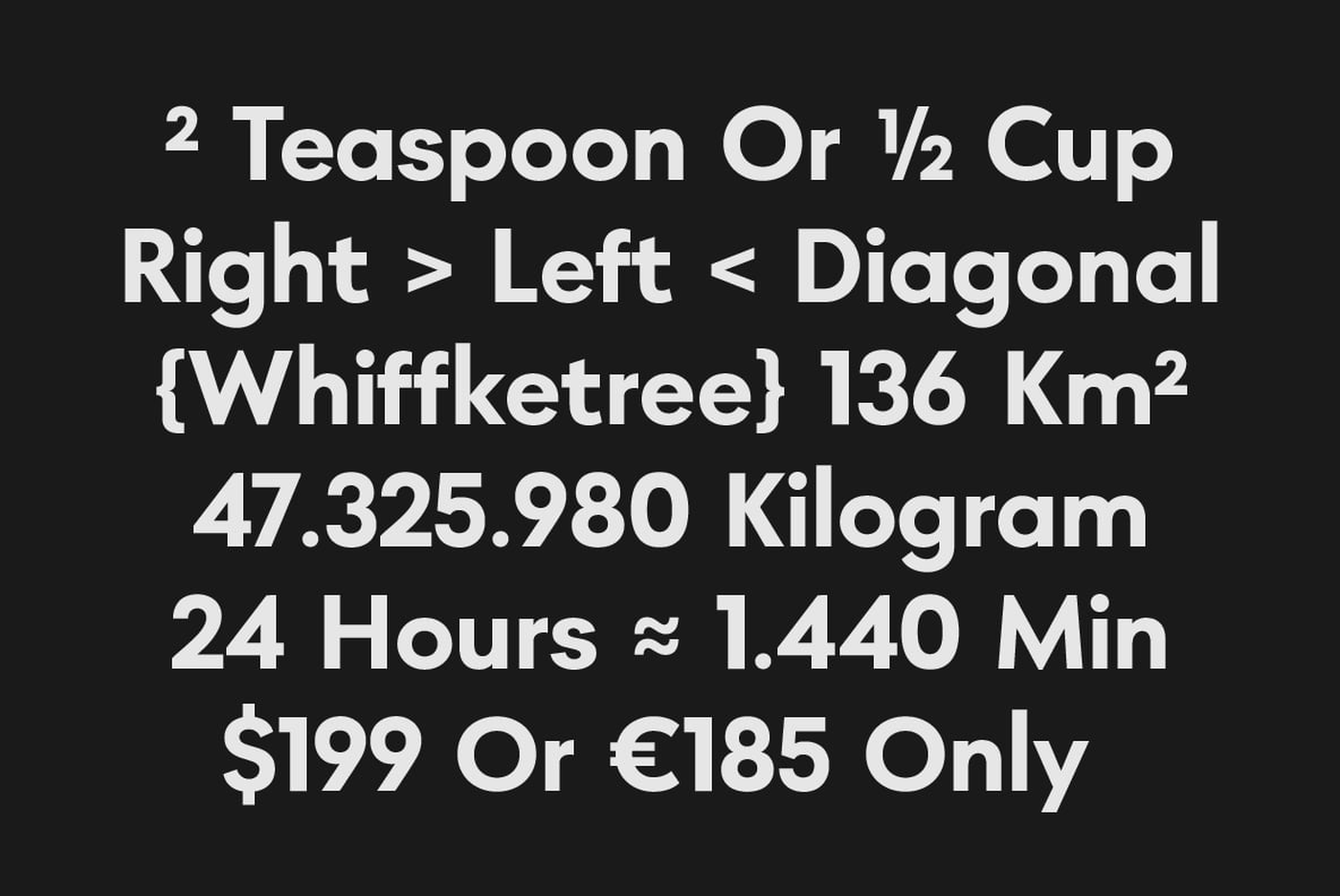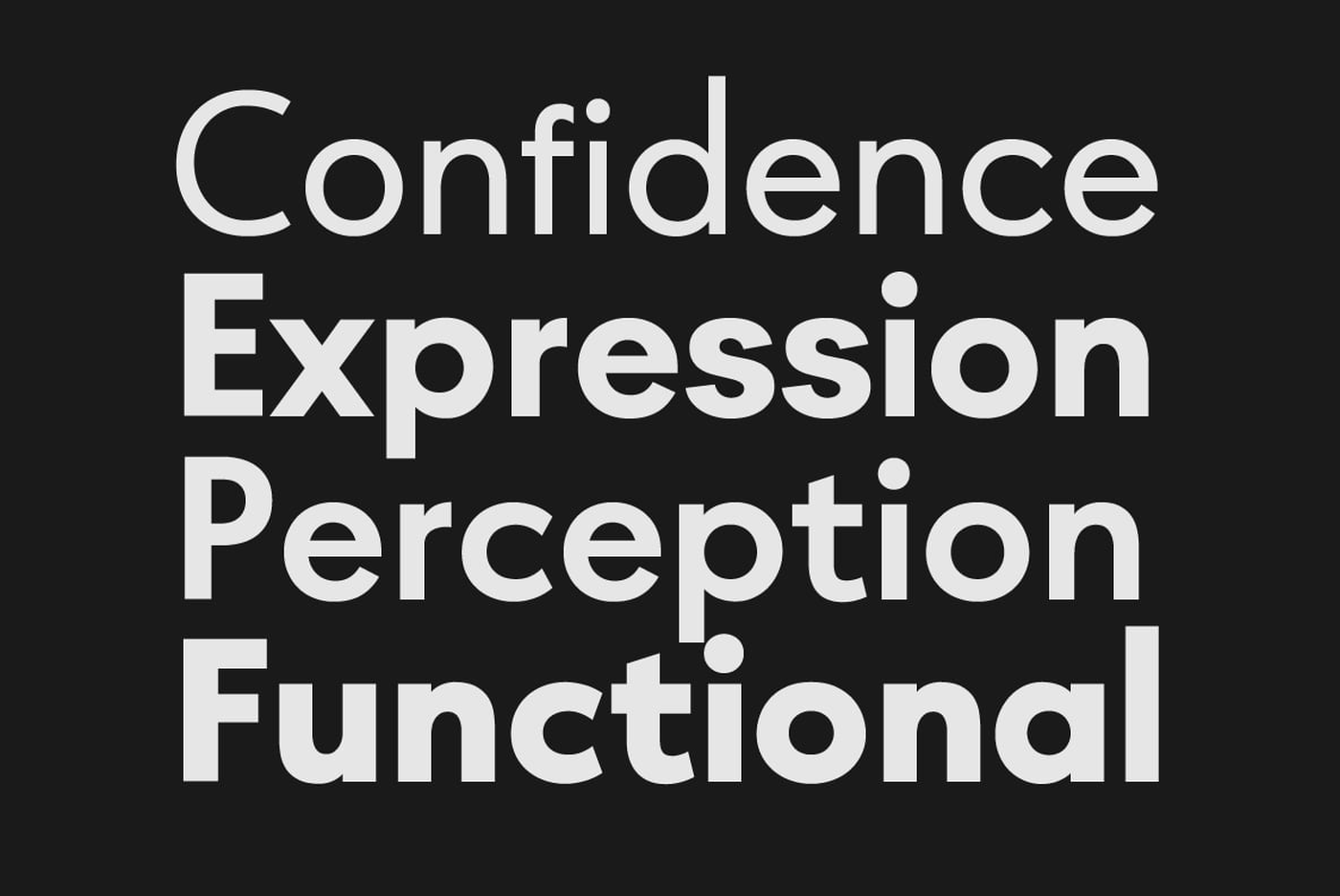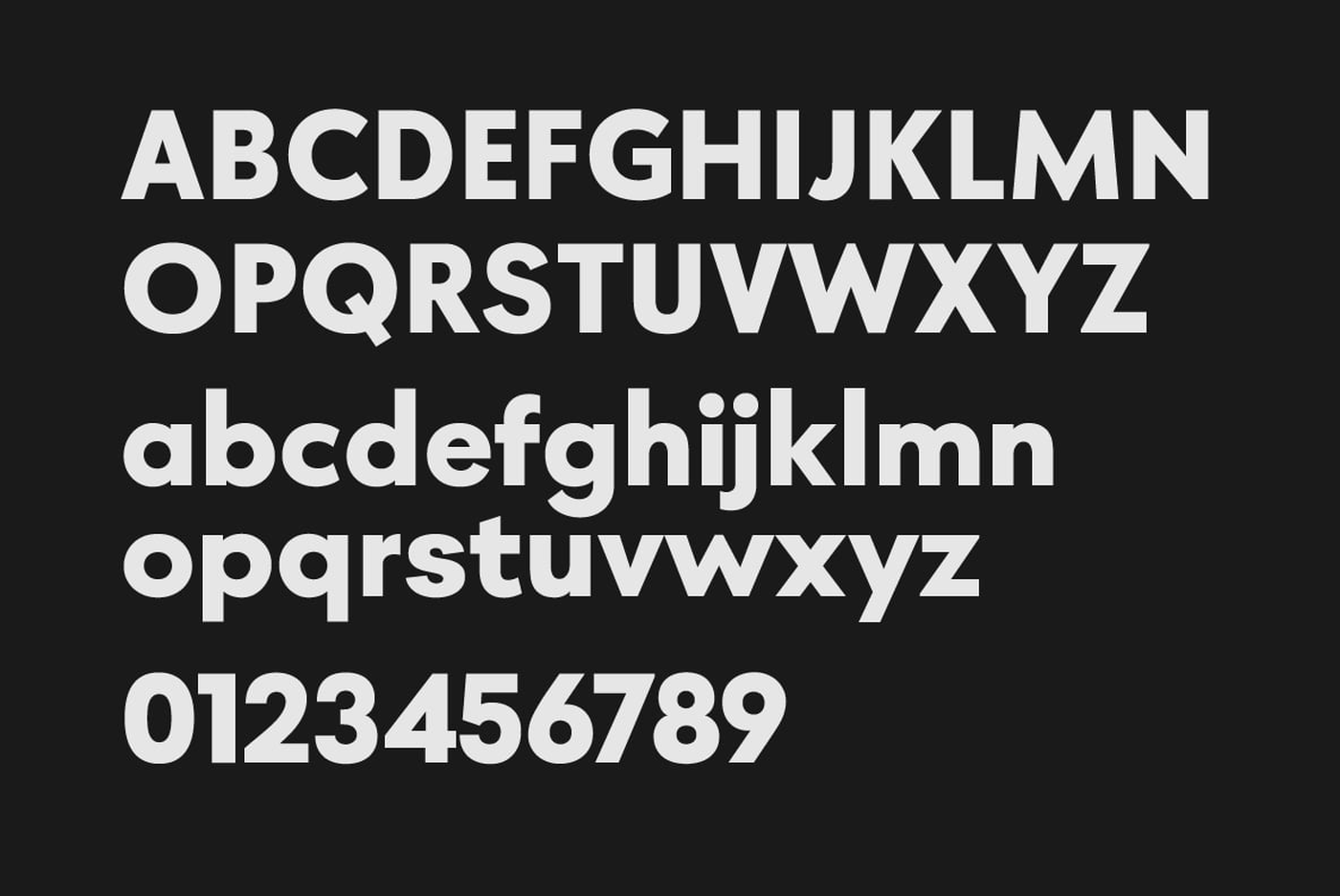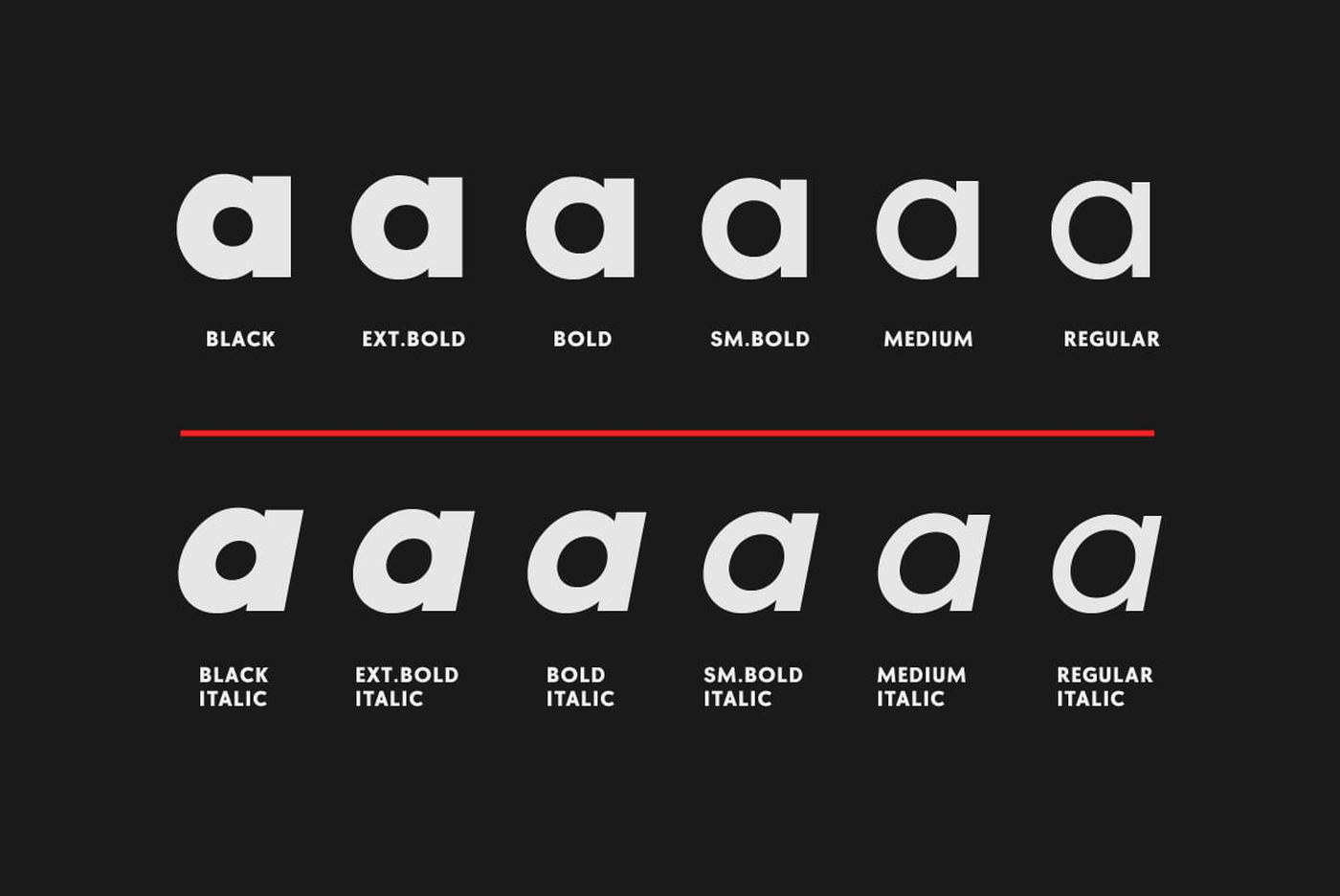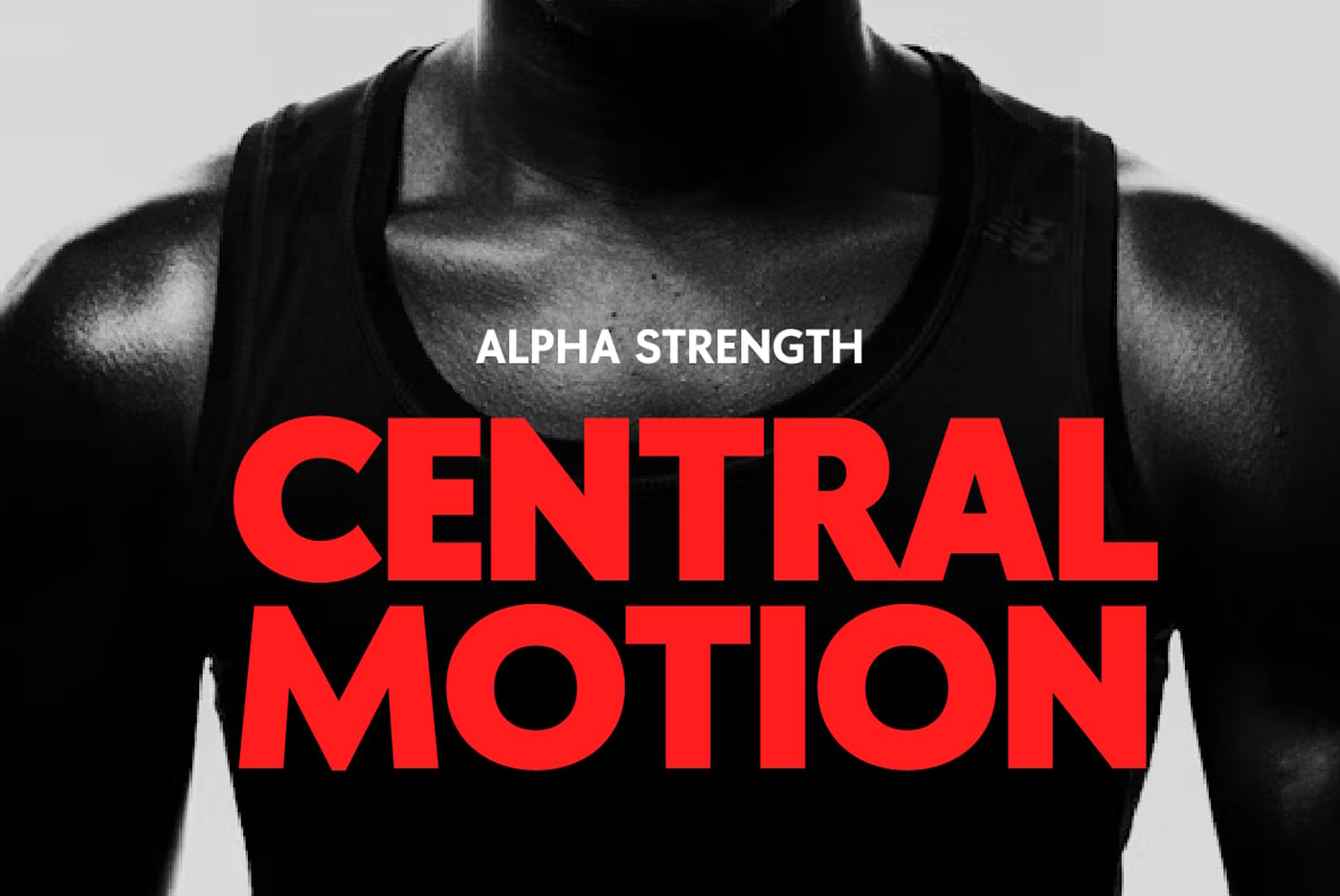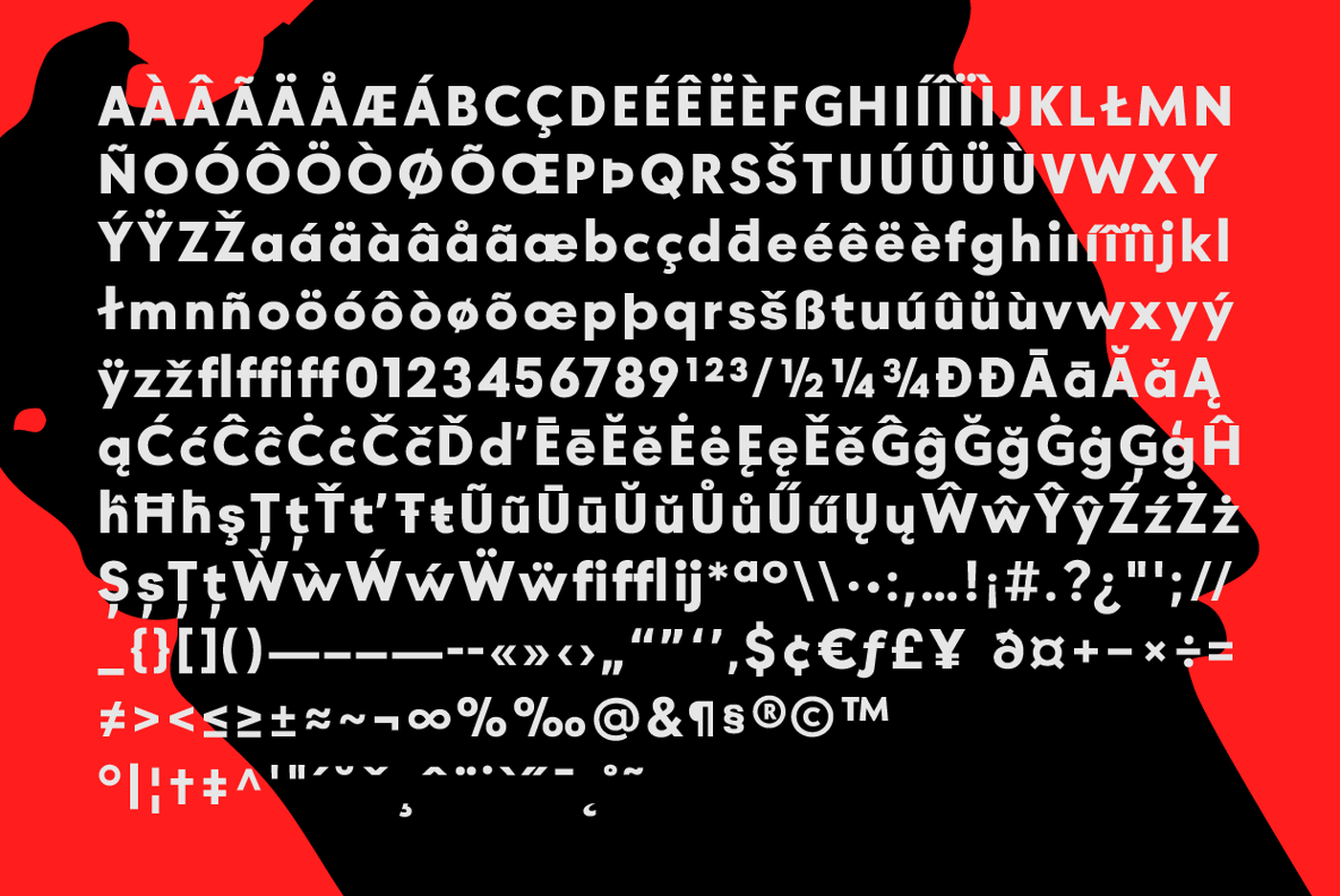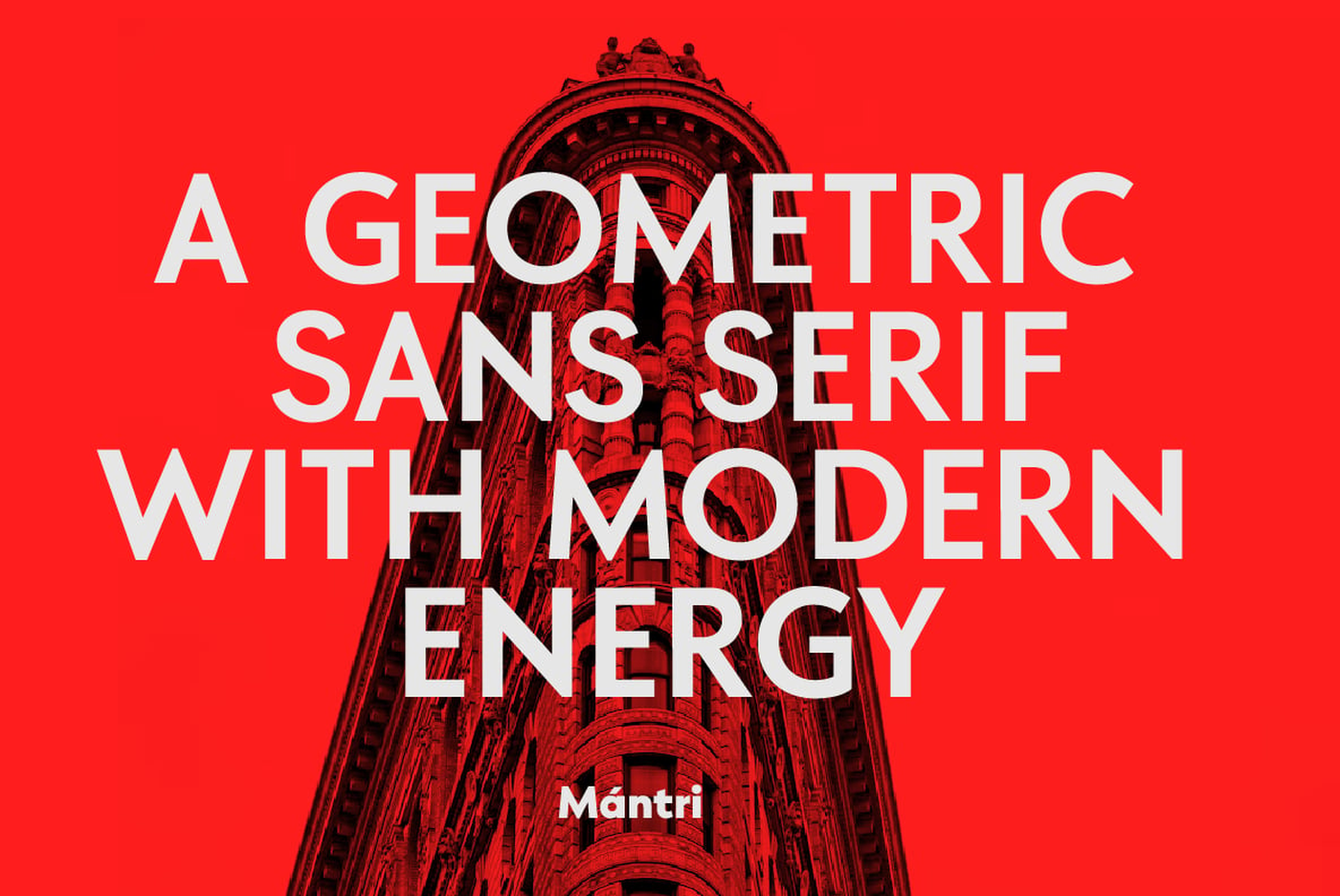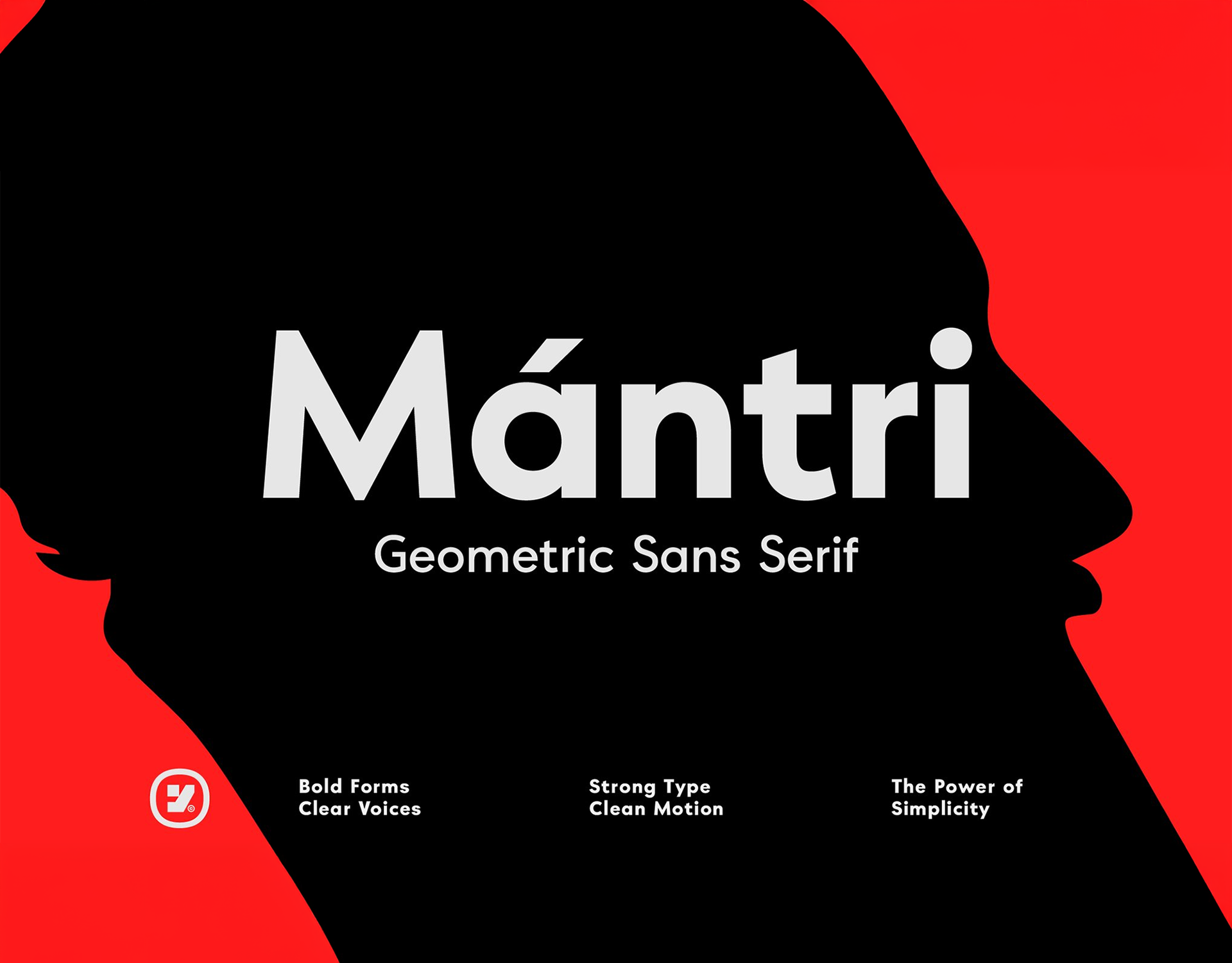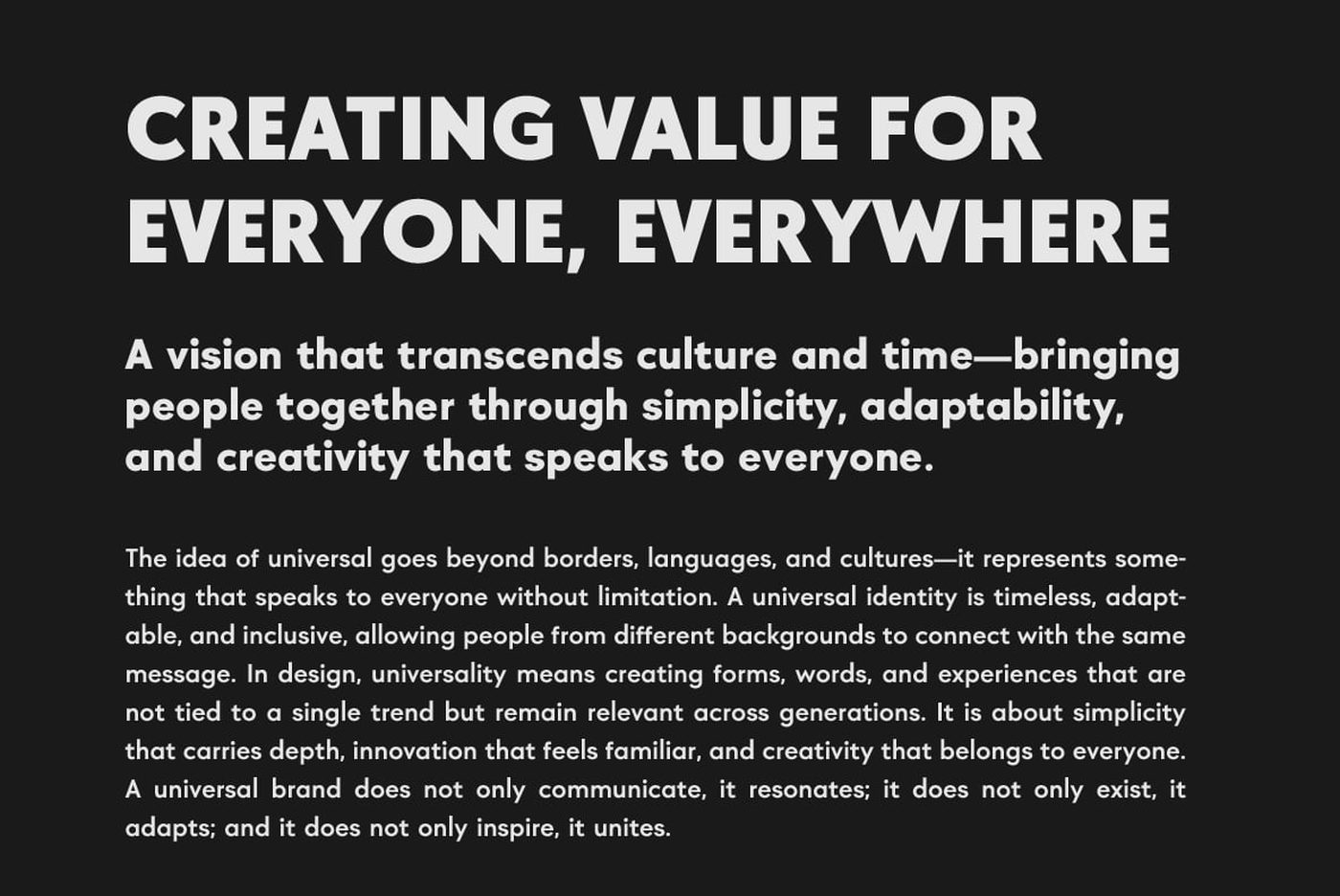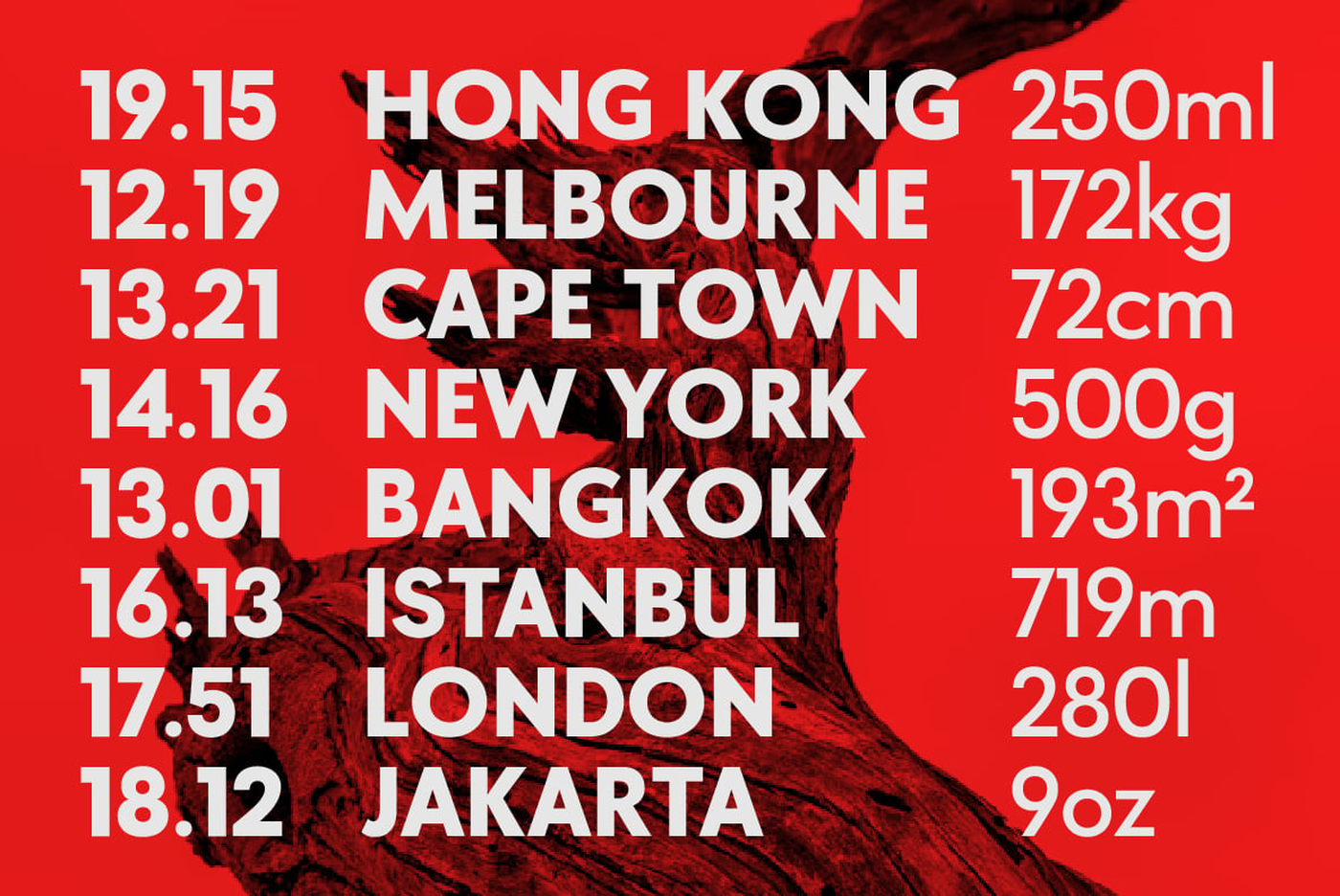
Mantri - Geometric Font Family
Mantri is a modern geometric sans serif font family featuring 6 weights from Regular to Black, each equipped with italic styles, making a total of 12 versatile styles. With 350+ glyphs and multilingual support, it’s designed to adapt to a wide range of global creative needs. Built with a bold, strong, simple, and modern character, Mantri works perfectly for logo branding, fitness designs, and techno-futuristic layouts. Its clean geometric forms also blend seamlessly with themes of brutalism, retro 80s, and hip hop street style. This font is highly versatile for any project: digital, print, editorial, posters, websites, or product packaging. Whether you are a designer, agency, or freelancer, Mantri delivers a professional and powerful typographic solution.
Font: Mantri